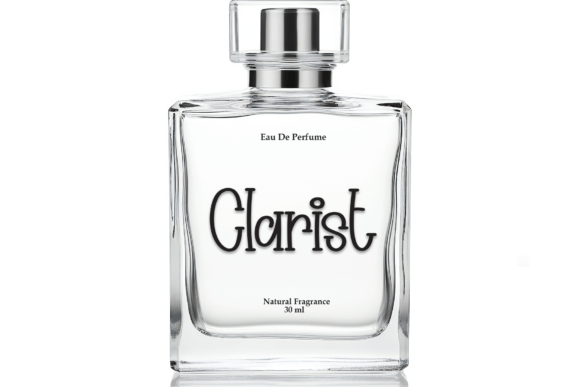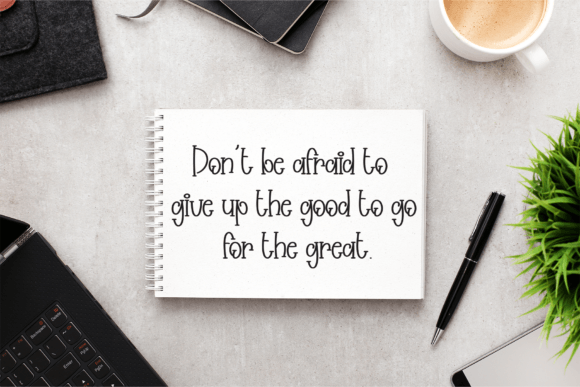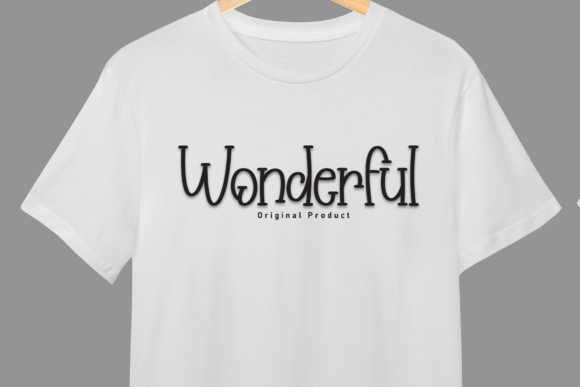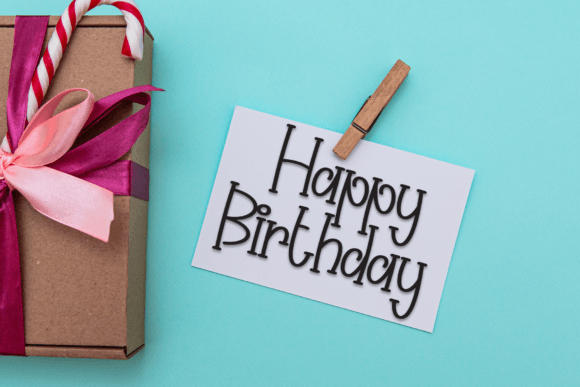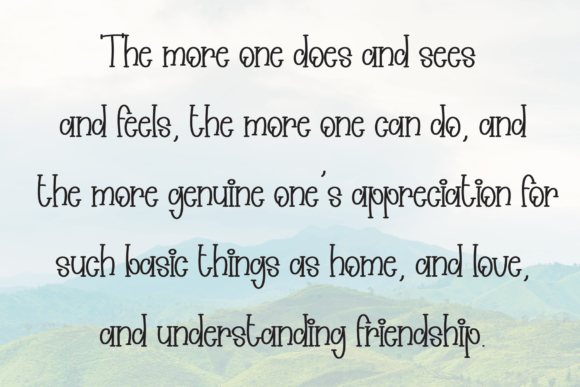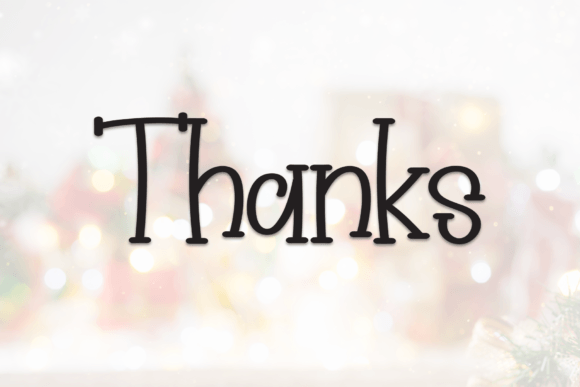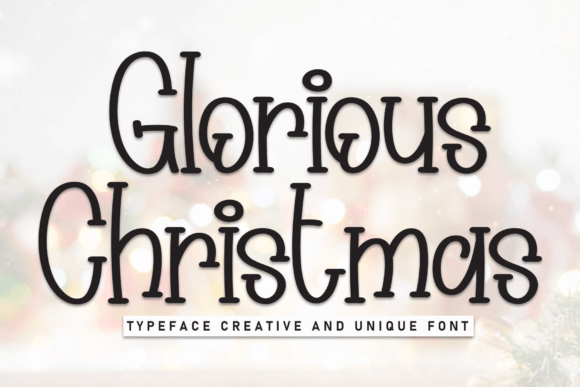
Glorious Christmas Font: Elevate Your Designs with Elegance and Joy
Are you looking for a font that will add a touch of magic to your designs this Christmas season? Look no further than the Glorious Christmas Font, a special creative product designed to give you an extraordinary experience. With its latest style letters, this font is perfect for a variety of projects, from wall displays and wedding invitations to social media post logos, advertisements, product packaging, and more.
The Glorious Christmas Font is versatile and can be used for a wide range of applications, including:
- Wall displays: Create eye-catching wall displays for your home, office, or store with this beautiful font.
- Wedding invitations: Add a touch of elegance and sophistication to your wedding invitations with the Glorious Christmas Font.
- Social media post logos: Make your social media posts stand out with a custom logo created using this font.
- Advertisements: Use the Glorious Christmas Font to create attention-grabbing advertisements that will leave a lasting impression.
- Product packaging: Elevate your product packaging with a professional and stylish font.
- Product designs: Add a personal touch to your product designs with the Glorious Christmas Font.
- Labels: Create beautiful labels for your products or gifts with this font.
- Photography: Use the Glorious Christmas Font to add a touch of elegance to your photography watermarks.
- Invitations: Create stunning invitations for any occasion with this font.
- Stationery: Add a personal touch to your stationery with the Glorious Christmas Font.
Why Choose the Glorious Christmas Font?
The Glorious Christmas Font is a cut above the rest for several reasons:
- Unique and elegant design: The font features a unique and elegant design that will add a touch of sophistication to your projects.
- Versatility: The font is versatile and can be used for a wide range of applications.
Tips for Using the Glorious Christmas Font
Here are some tips for getting the most out of the Glorious Christmas Font:
- Experiment with different sizes and colors: Don’t be afraid to experiment with different sizes and colors to find the perfect combination for your project.
- Pair it with other fonts: The Glorious Christmas Font pairs well with other fonts, so feel free to get creative and try out different combinations.
- Use it for headlines and titles: The font is perfect for headlines and titles, adding a touch of elegance and sophistication to your projects.